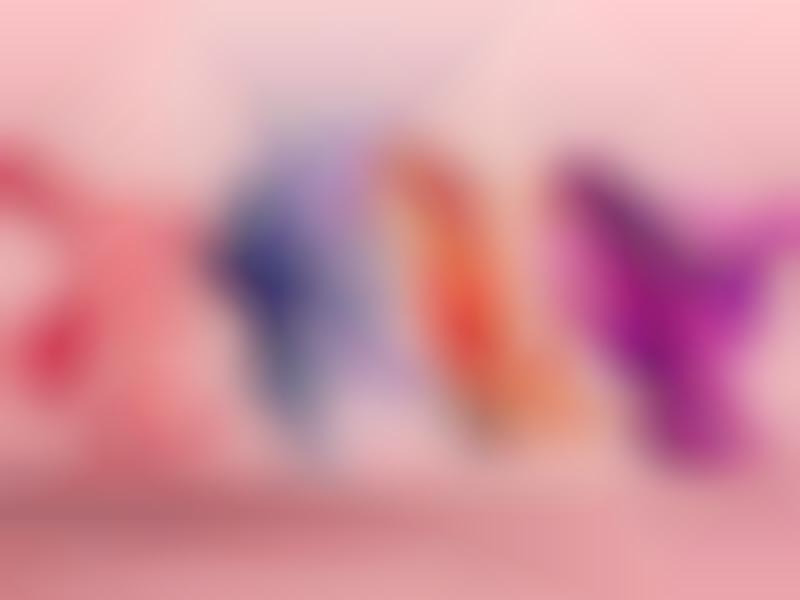
Leonardoworx LWX is director and digital artist based in Florence, Italy, who has a talent for creating amazing type fonts that go against traditional boundaries.
With 'PROJECT ARCO,' the creative transforms typical type fonts to be abstract in appearance, making for an end result that shows the letters as wavy artworks rather than functional type fonts. In order to do this, Leonardoworx LWX took a classic theme known as 'Bodoni,' a serif form that intermingles thick and thin lines.
To explain the project, the creative wrote "As Bodoni is a Serif, my target was to create from these letters a new kind of signs, more abstract, but also more actual and contemporary at the same time, following the idea that smooth curves had to be the main actors of this project."
Leonardoworx's Type Fonts Have a Highly Unique Whimsical Appearance